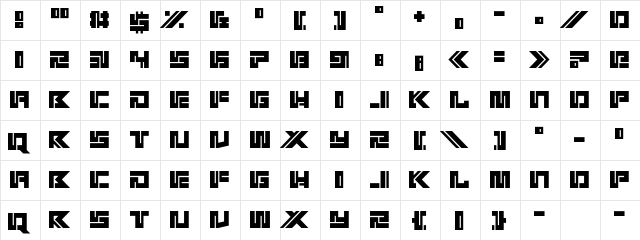
Kotoba Regular Font Preview
Kotoba Regular
Kotoba Regular Font Details
| Designer | Allison James |
Design Context for Kotoba Typeface
Kotoba is a composed and adaptable typeface that performs quietly and consistently across a wide range of design contexts.